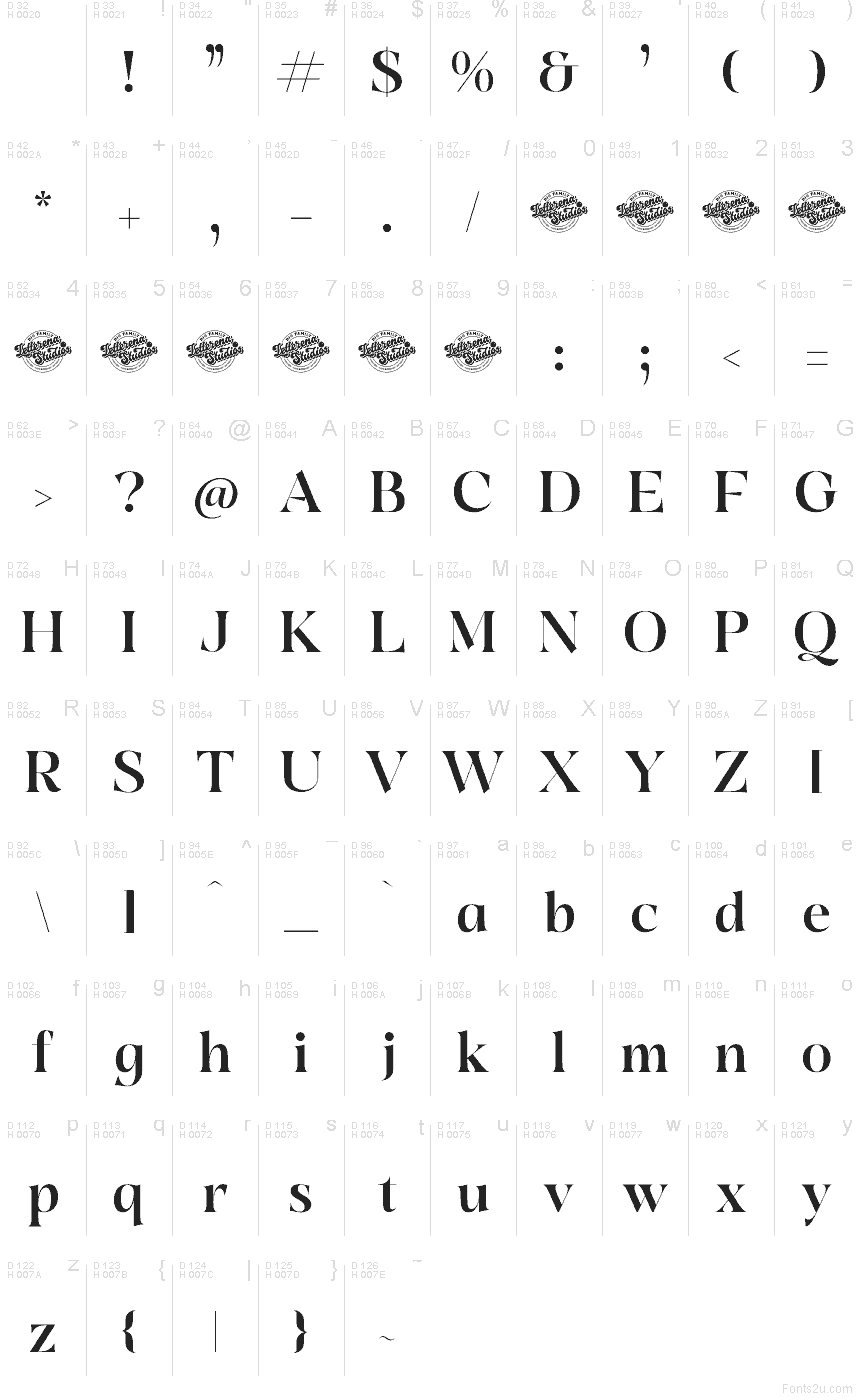
Quilge font by Letterena Studios is a free serif typeface that feels sculpted rather than simply drawn. Broad, inky strokes swoop into razor-clean curves, while the long, ribbon-like flourish on the “Q” sets the whole design humming with drama and poise. It has that boutique, editorial presence where every letter looks carefully tailored, giving headlines a rich, tactile weight on the page or screen.
Using Quilge, your titles don’t just sit there—they perform. This free font shines on luxury branding, fashion editorials, book covers, cosmetics packaging, magazine mastheads, and striking social media graphics. It holds up beautifully at large sizes where those sweeping curves can breathe; pair Quilge with a simple grotesque sans for body copy to let its bold, theatrical character take center stage.